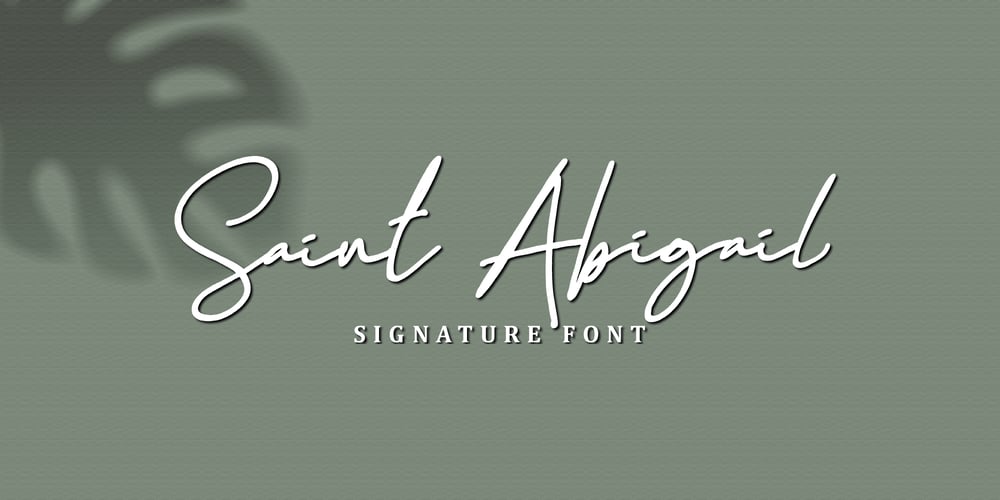
Saint Abigail Font Family was designed by Lia Almuknisa and published by Fromletterel. Saint Abigail contains 1 styles and family package options. Saint Abigail is a handmade font with clean and modern signature style, perfect for creating authentic hand- lettered, branding, logos, card, gift design, wedding related stuffs, web design and social media post.Happy design.